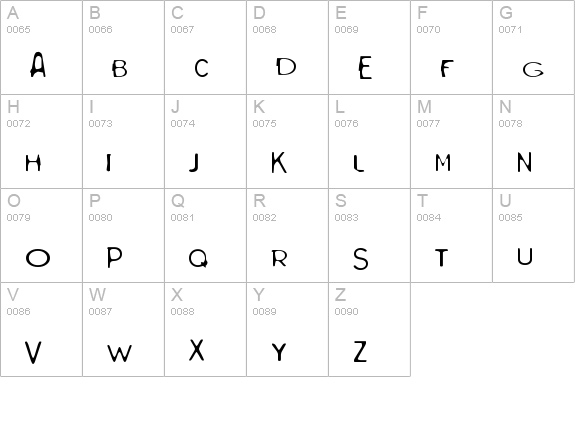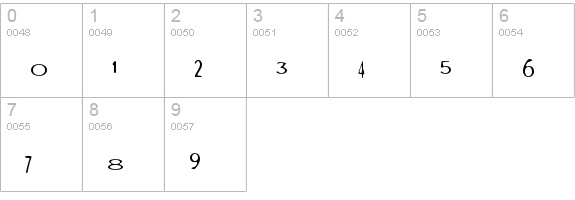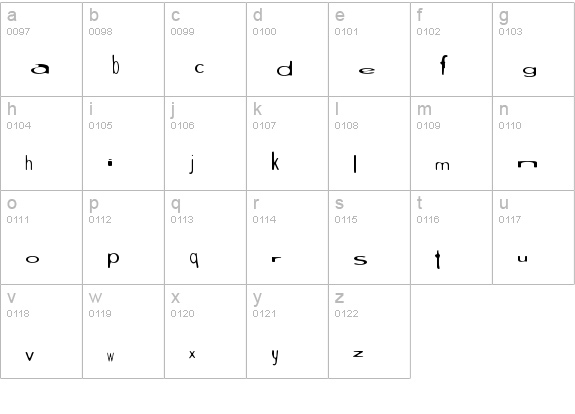
West Point font is a stunning and versatile typeface that combines elegance with a touch of modernity. Its clean and crisp letterforms make it perfect for a wide range of design projects, from branding and advertising to packaging and editorial layouts. With its balanced proportions and sophisticated curves, West Point font exudes a sense of professionalism and refinement. The well-crafted details of each character add a sense of elegance and charm, making it a truly eye-catching choice for any project. What makes West Point font even more appealing is that it is free! Yes, you read that right. This exceptional font is freely available to download at FontsMarket.com. Whether you're a design enthusiast, a professional graphic designer, or simply someone looking to add a touch of style to your personal projects, West Point font is the perfect choice. Not only does West Point font offer versatility and beauty, but it also provides ease and accessibility. Its compatibility with various software programs and operating systems ensures a seamless experience for users. You can effortlessly incorporate this font into your designs and achieve outstanding results. From logos and headlines to body text and invitations, West Point font is an excellent choice to bring your creative visions to life. Its wide range of weights and styles provides flexibility, allowing you to explore different typographic combinations and create unique designs that truly stand out. So, why wait? Visit FontsMarket.com today and download West Point font for free. Take advantage of this fantastic opportunity to enhance your design projects and let your creativity flourish. Upgrade your typography game with West Point font and make a lasting impression.